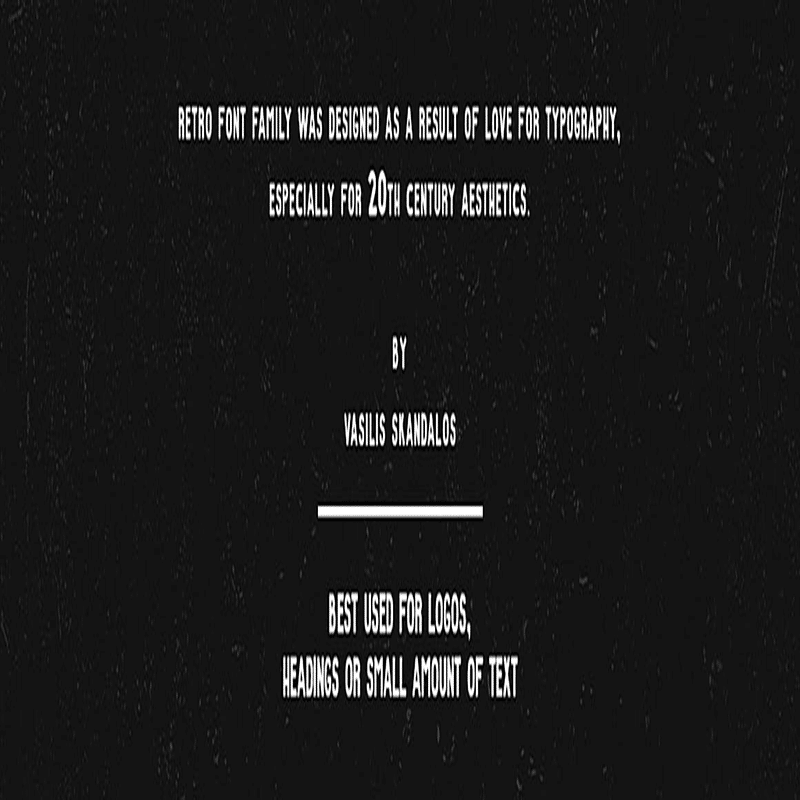
Retro Sans & Serif Font
Retro Sans Serif Font
Retro font family was designed as a result of love for typography and especially in the time of 20th century. As an experimental design, this font is given to public for free and for any use. I would like to see what you’ve created from it, enjoy!
• Designer: Vasilis Skandalos